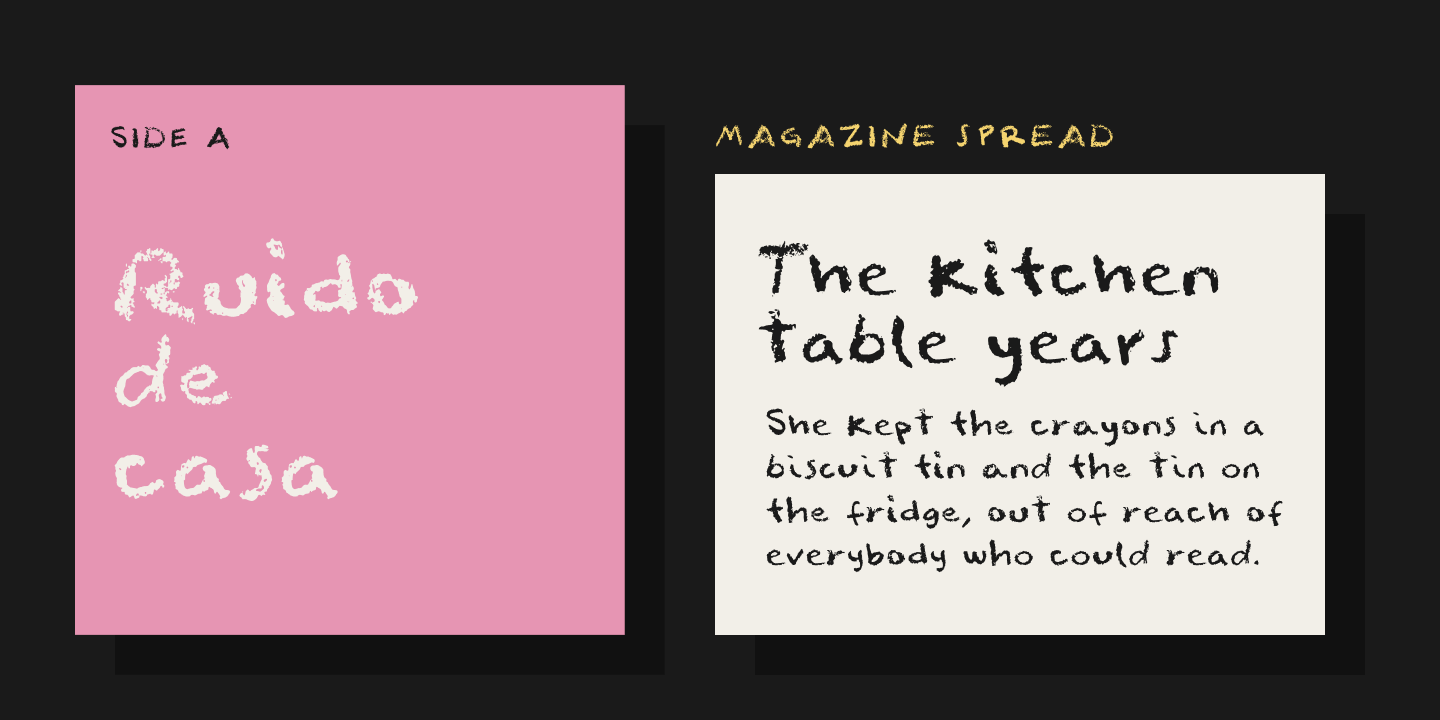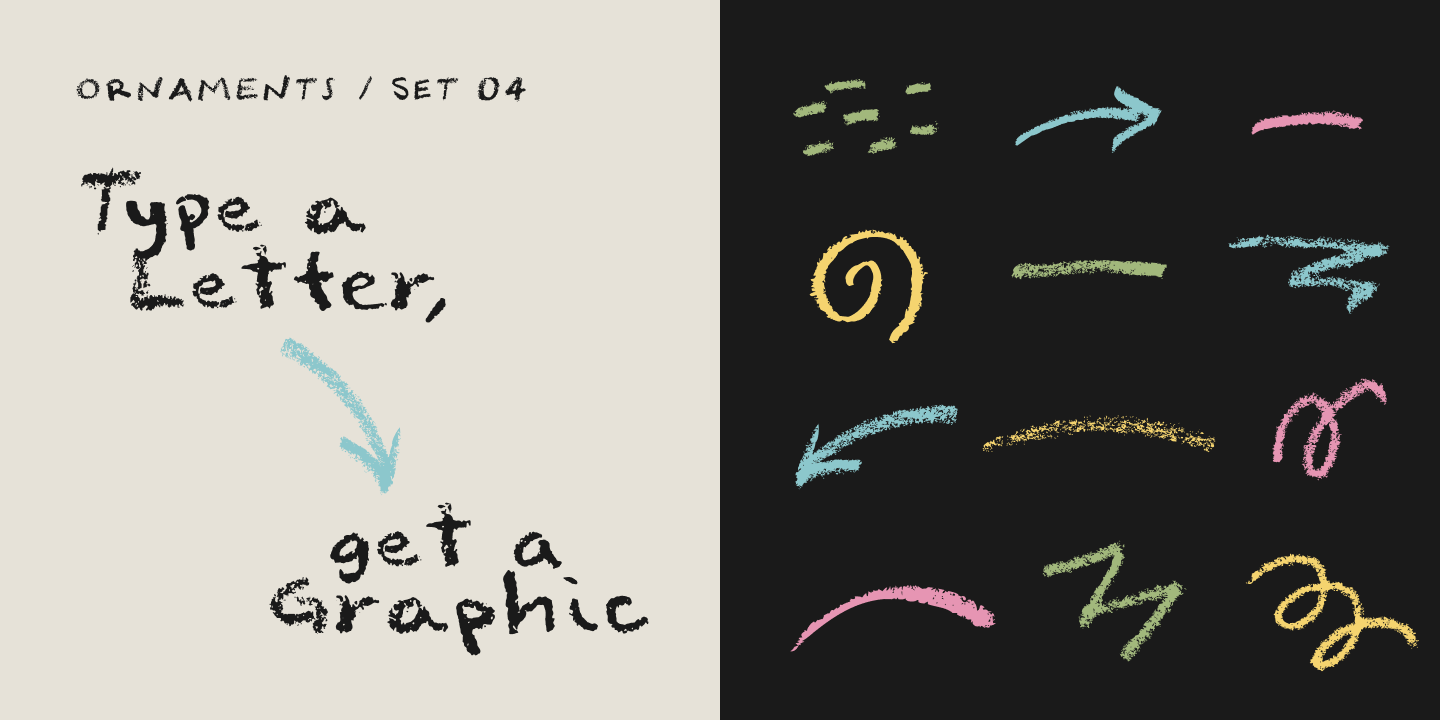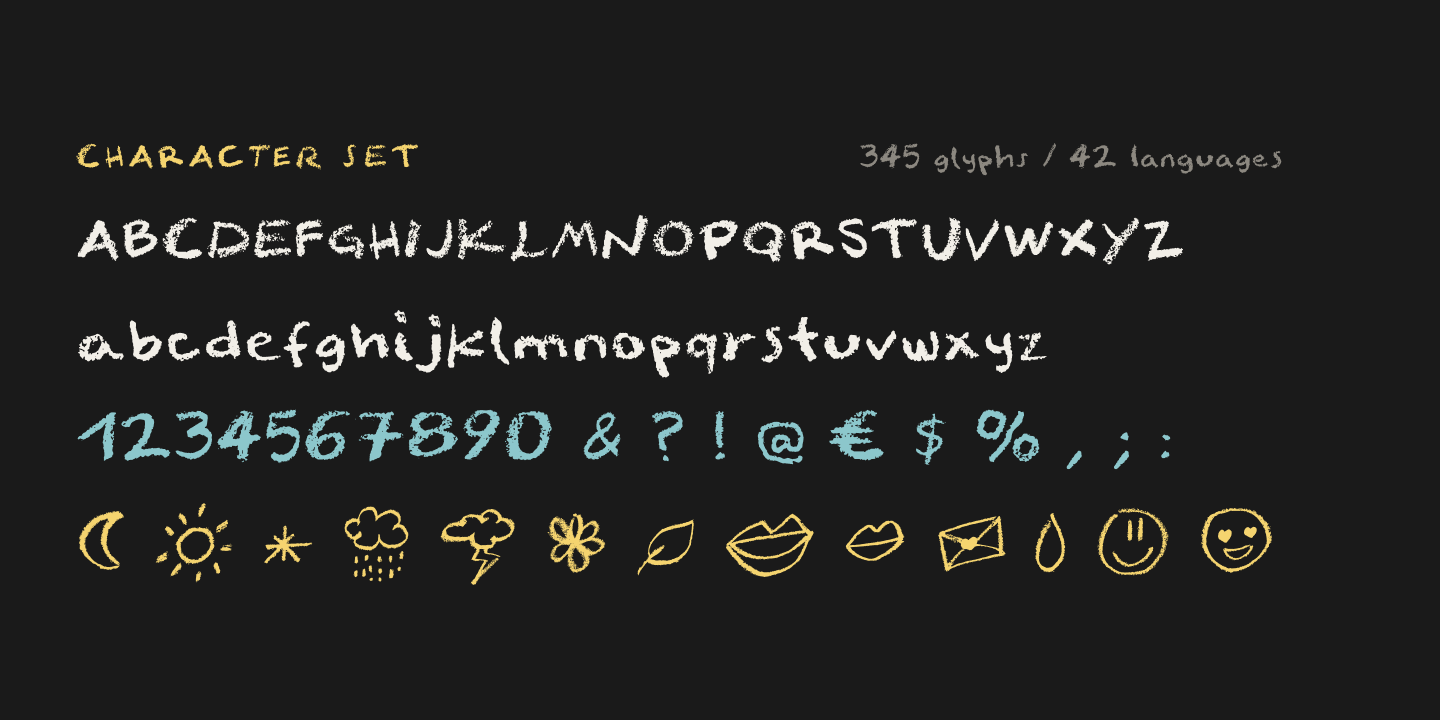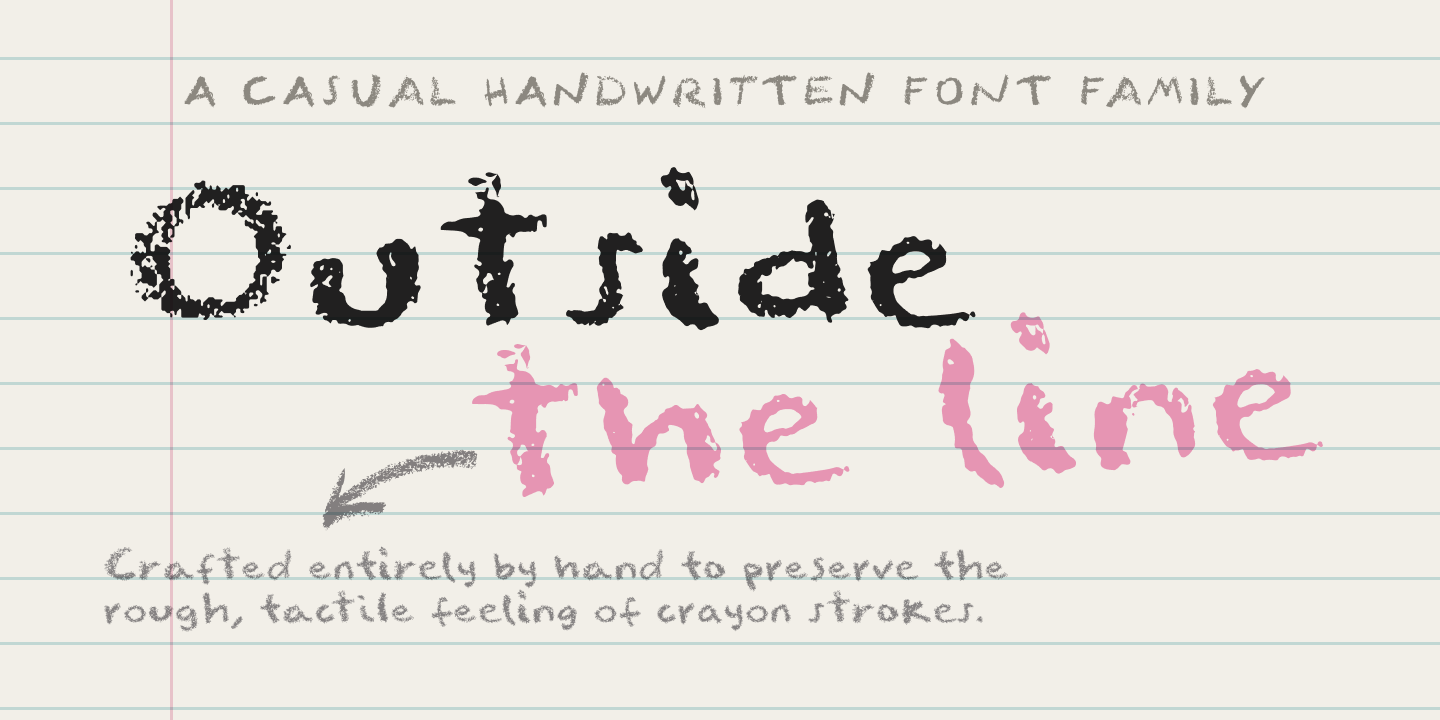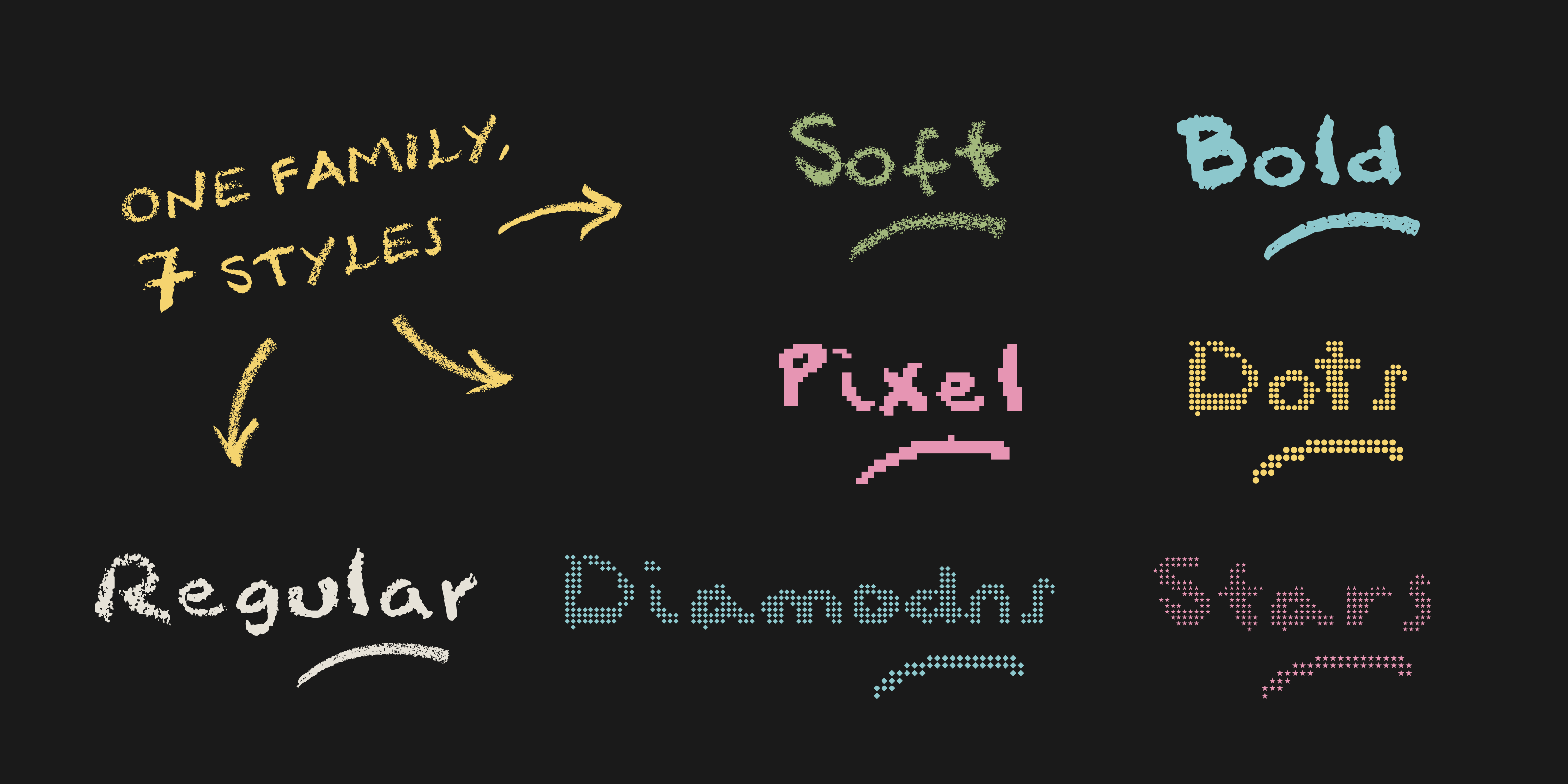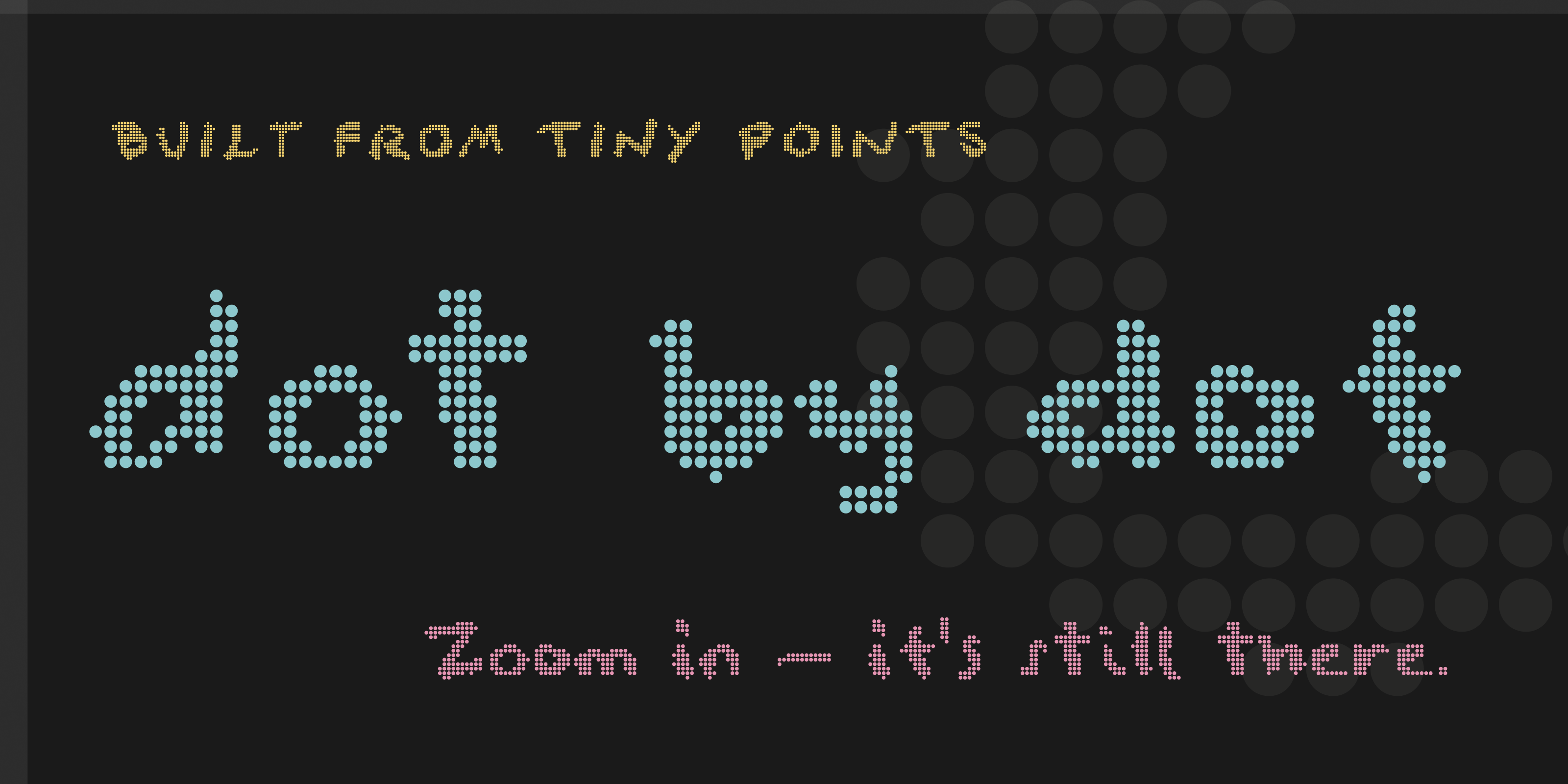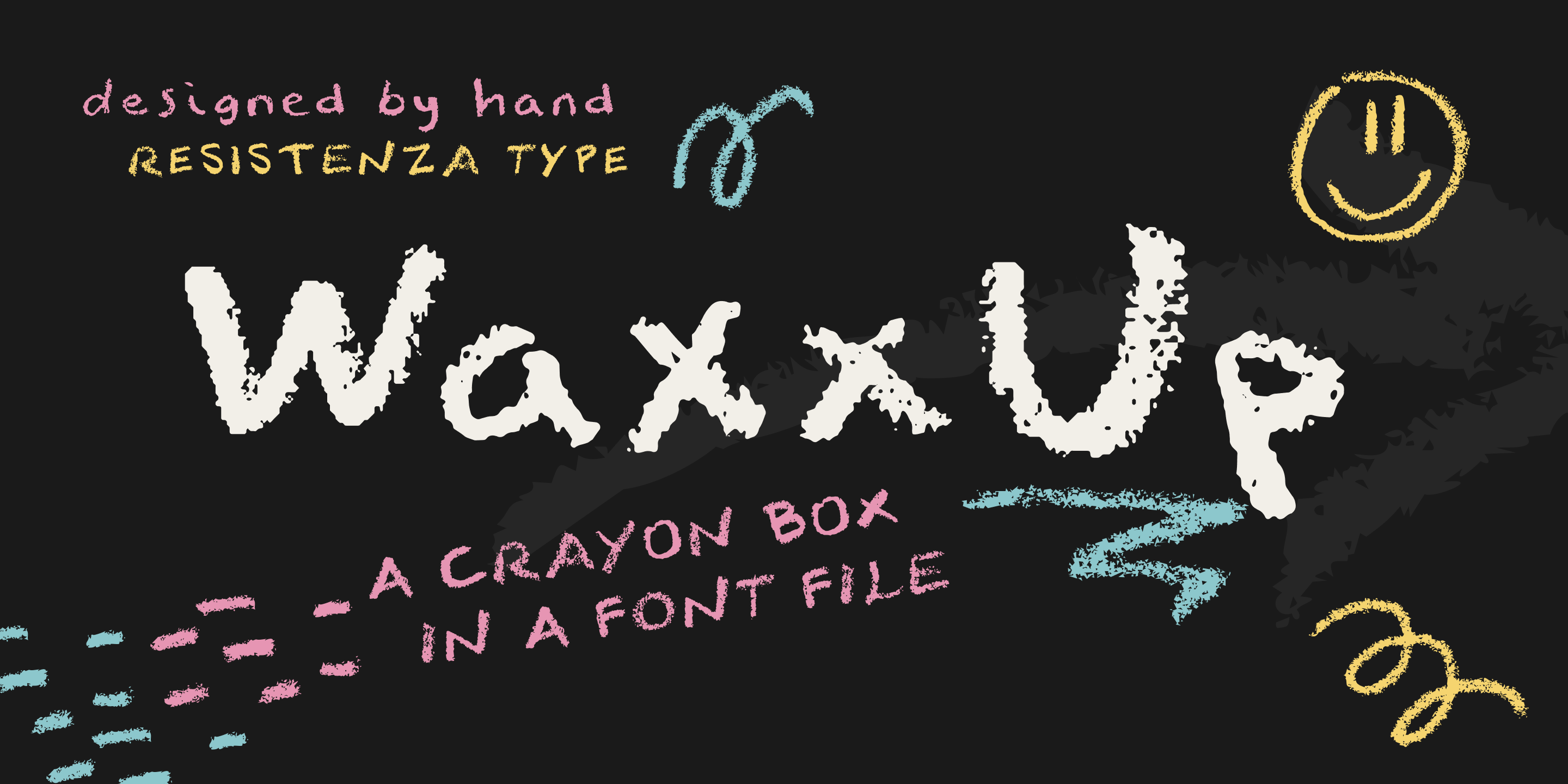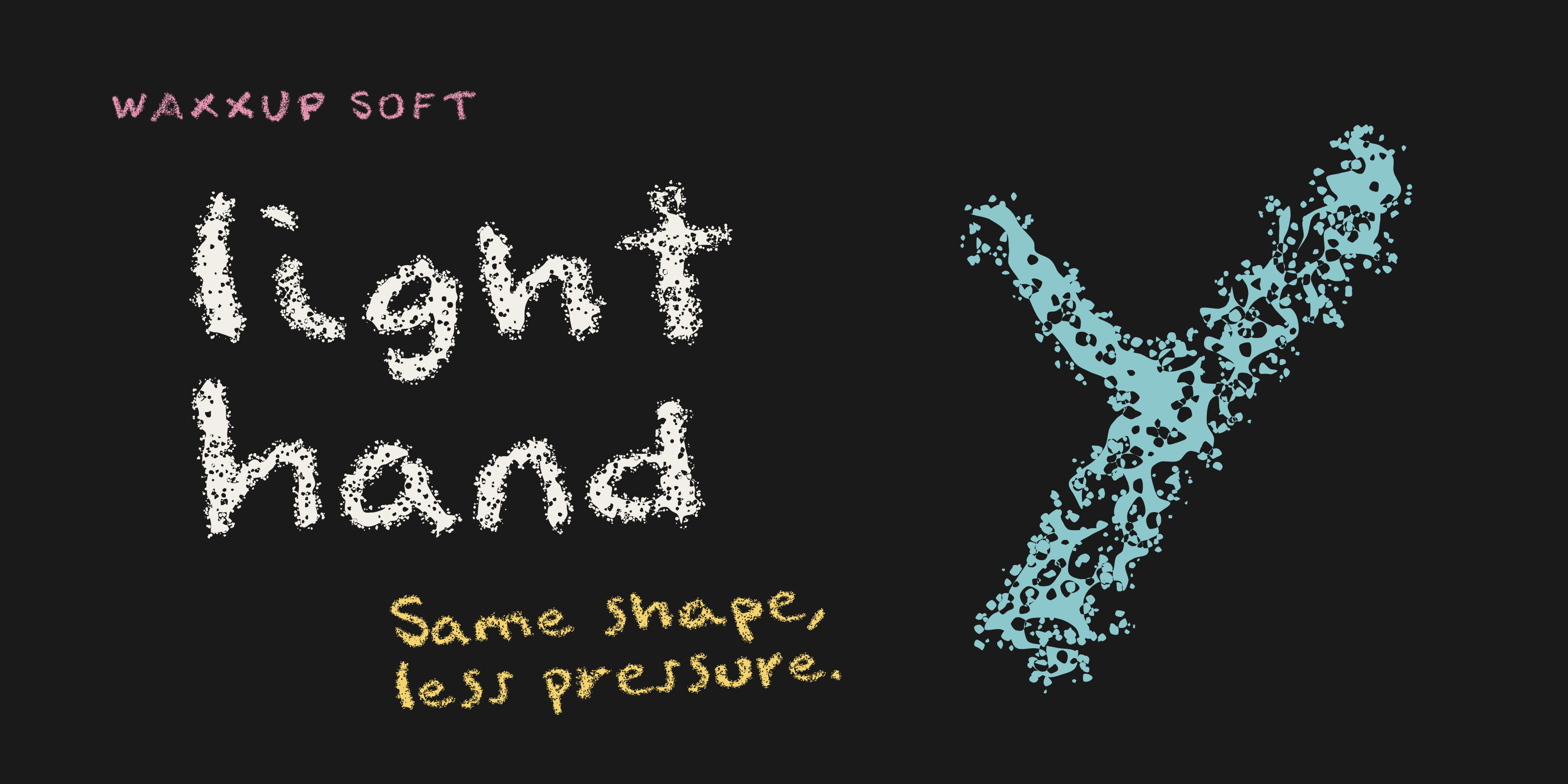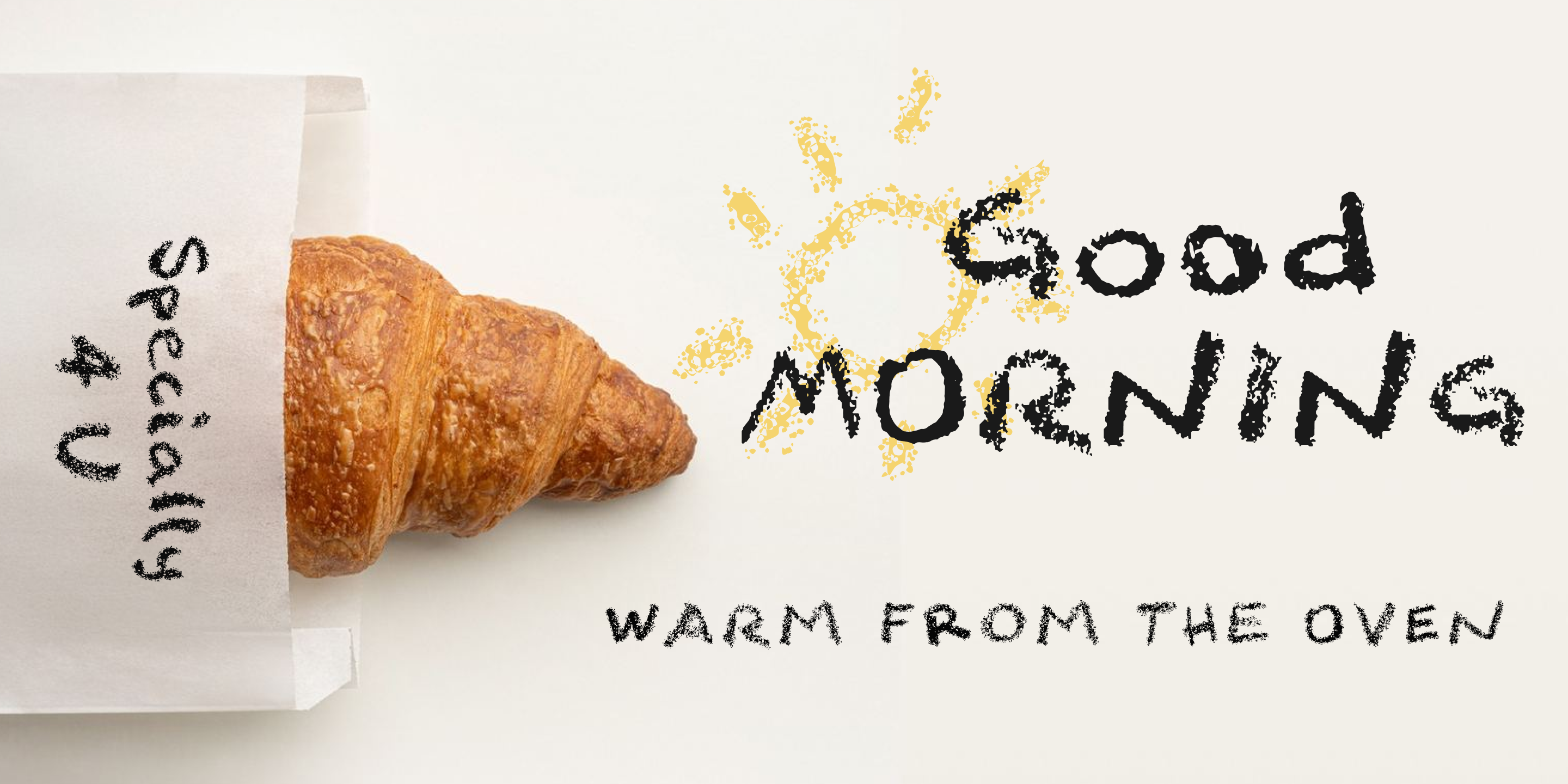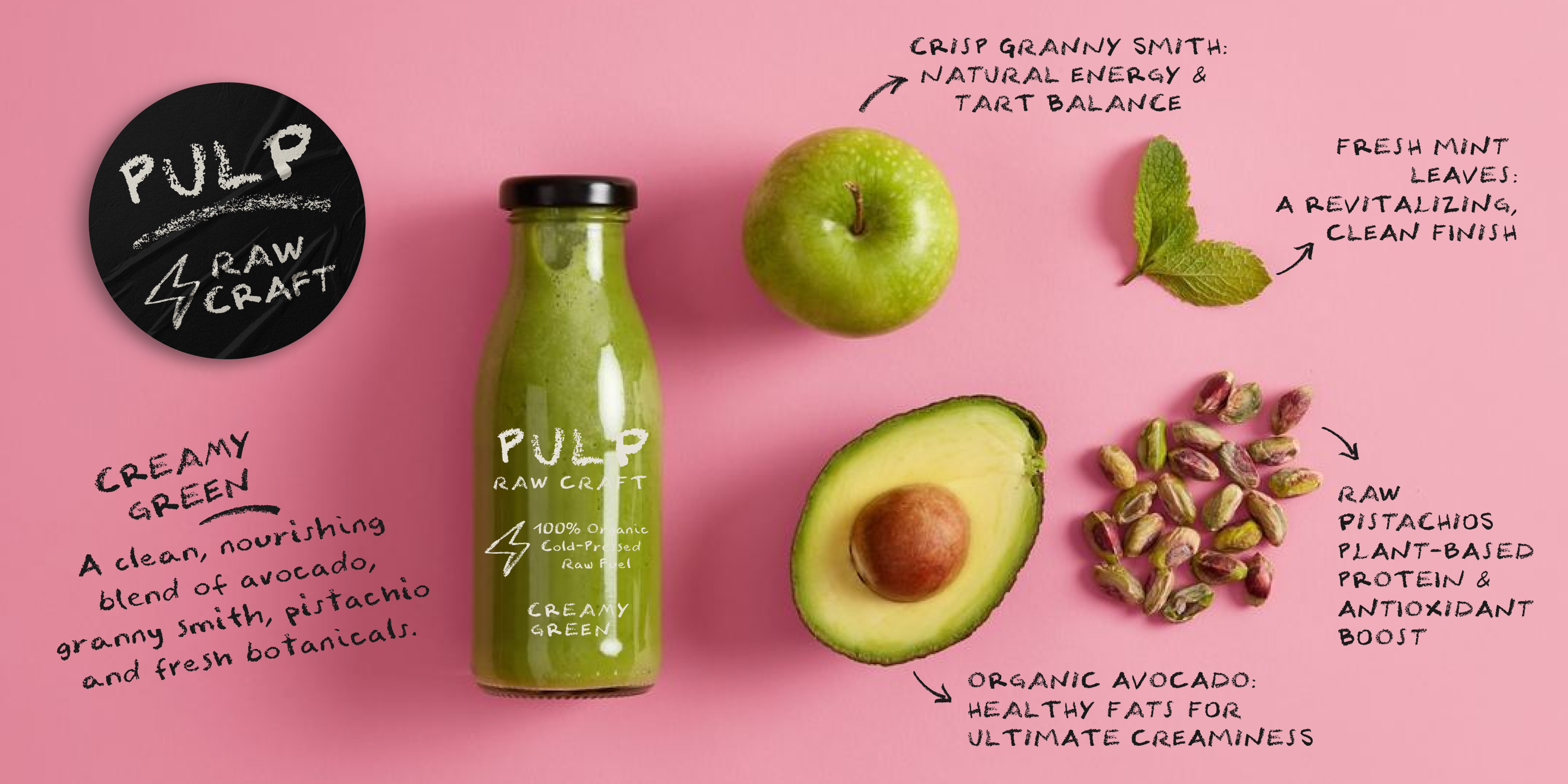
Waxxup
Regular
Bold
Soft
Pixel
Dots
Diamonds
Stars
Cross
Wax crayon on paper
Waxxup
Designed by Resistenza Type FoundryWaxxup is a casual handwritten font created with real wax crayon on paper. Each letterform preserves the texture of the original drawing — uneven pressure, rough edges, and small imperfections that give this handmade font a genuinely authentic feel, not a simulated one. Part of the growing family of handwritten typefaces and script fonts designed for brands seeking warmth and personality, Waxxup combines a loose, expressive character with strong legibility. This casual script font is ideal for packaging design, branding, and editorial projects that want to move away from polished, digital-looking type and embrace a human, handcrafted aesthetic. Waxxup works especially well for food and beverage packaging, greeting cards, kids' and lifestyle branding, apparel, and any headline or logotype that calls for a friendly, informal voice. As a versatile handwritten display font, it pairs naturally with clean sans-serif or serif fonts for contrast in branding systems.